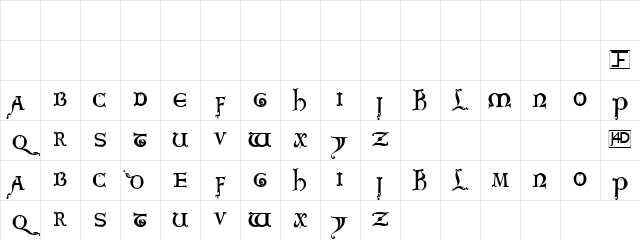
King Arthur Normal
King Arthur Family
Design Context for King Arthur
King Arthur is a composed and adaptable typeface that performs quietly and consistently across a wide range of design contexts.